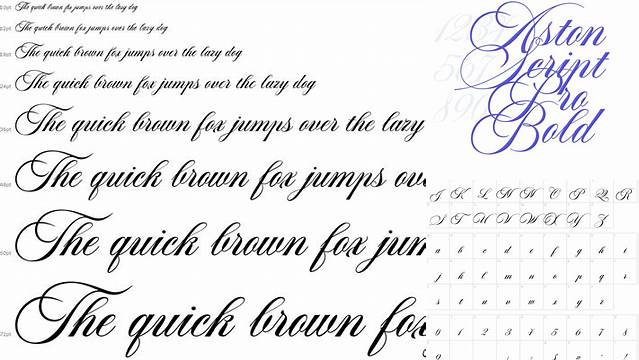
Aston Script Font: Free Download & Design Guide
Hey guys! Ever stumbled upon a font that just screams elegance and sophistication? Well, let me introduce you to the Aston Script Font! It's the kind of font that makes you want to write fancy invitations, design stunning logos, or even just jazz up your social media posts. And the best part? You can get an Aston Script Font free download, making it super accessible for everyone! This comprehensive guide will walk you through everything you need to know about this amazing font, from where to download it safely to how to use it effectively in your designs. We'll dive deep into its characteristics, explore its versatility, and even provide some killer tips to help you create visually appealing masterpieces. So, buckle up, design enthusiasts, because we're about to embark on a journey into the beautiful world of the Aston Script Font!
1. What Makes Aston Script Font So Special?
Alright, let's get down to the nitty-gritty. What's the big deal about the Aston Script Font? Well, first off, it's a script font, meaning it mimics the look of handwriting. But it's not just any handwriting; it's a beautifully crafted, flowing script that exudes charm and grace. Think of it as the Audrey Hepburn of fonts – timeless, elegant, and always in style. The Aston Script Font boasts a unique blend of classic and contemporary elements. It has a slightly vintage feel, which can add a touch of nostalgia to your designs, but it's also clean and modern enough to fit seamlessly into current trends. The curves are smooth and inviting, the strokes are carefully considered, and the overall aesthetic is simply stunning. This font family often comes with a variety of weights and styles, allowing for incredible flexibility. Whether you're aiming for a delicate, feminine look or a bold, eye-catching statement, the Aston Script Font has you covered. Another thing that sets this font apart is its readability. Unlike some overly elaborate script fonts that can be difficult to decipher, the Aston Script Font is designed to be both beautiful and functional. The letterforms are clear and distinct, ensuring that your message is easily understood. So, if you're looking for a font that's both visually appealing and highly readable, the Aston Script Font is definitely worth considering. It's the perfect choice for adding a touch of sophistication to your projects without sacrificing clarity.
3. The Design Aesthetics of the Aston Script Font
Let's get into the nitty-gritty of the Aston Script Font. This font's aesthetic is a beautiful blend of sophistication and readability. The design is characterized by flowing strokes and elegant curves. One of the most notable features is the way the letters connect. The connections between letters create a seamless and harmonious flow, making the text appear as if it was handwritten. The contrast between thick and thin strokes adds depth and visual interest. The thicker strokes typically appear in the downstrokes, while the thinner strokes are used in the upstrokes, which create a dynamic and visually appealing effect. The letterforms have a slight slant, which adds a sense of dynamism and movement. This slant makes the font feel less formal and more approachable. The font also features a range of stylistic variations, such as swashes and ligatures. Swashes are decorative flourishes that can be added to the beginning or end of words, which add a touch of elegance and flair. Ligatures are special characters where two or more letters are combined into a single glyph, to enhance the overall visual appeal. The Aston Script Font strikes a perfect balance between readability and visual appeal. The letterforms are clear and distinct, which ensures that the text is easy to read, even at smaller sizes. Overall, the design aesthetics of the Aston Script Font are a testament to the art of typography. It’s a font that is able to bring a touch of elegance and personality to any design. It's suitable for various uses, from wedding invitations to branding materials. The design aesthetics of the Aston Script Font make it a versatile and attractive choice for any designer seeking to create something beautiful.
3.1. Characteristics of Aston Script Font's Letterforms
Let's dive into the specifics of the Aston Script Font's letterforms. The character set of Aston Script Font is meticulously designed, with each letter crafted to reflect the elegance of handwriting. It features a calligraphic quality that sets it apart. The curves are smooth and graceful, and the angles are carefully considered to create a visually pleasing effect. The letterforms are not overly stylized. They are designed with readability in mind. This is crucial for ensuring that the text is easily understood, whether it is used in headlines, body text, or any other design element. The letterforms of the Aston Script Font display varying stroke weights, which is an essential element of the font's aesthetic appeal. The contrast between thick and thin strokes gives the font a dynamic and lively feel. This effect is achieved by varying the pressure applied when writing with a brush or pen. The serifs are subtle and elegant, adding to the font's overall sophistication. Serifs are the small strokes or flourishes at the ends of letterforms. In the Aston Script Font, the serifs are present but are not overpowering, which helps maintain the font's elegance. The overall form of each character is a reflection of a sense of balance and proportion. The designers have paid attention to the spacing between letters and the overall balance of each word. This ensures that the text looks harmonious and visually attractive. The character set typically includes a variety of ligatures and alternate characters. Ligatures are special characters in which two or more letters are combined into a single glyph. These can improve the flow of the text. Alternate characters provide more options for designers. This allows them to add extra variety and personality to their work. The letterforms of the Aston Script Font are a reflection of the designers' attention to detail. The font's qualities make it a perfect choice for projects where elegance and readability are key.
3.2. Comparing Aston Script Font to Similar Fonts
Okay, let’s see how the Aston Script Font measures up against some other popular script fonts. Understanding its place in the world of typography helps you choose the perfect font for your project. Compared to fonts like Brush Script, the Aston Script Font tends to have a more refined and elegant feel. Brush Script is a bit more informal and playful, with bolder strokes and a more casual appearance. The Aston Script Font, on the other hand, is more suitable for projects that require a touch of sophistication. Then there's Great Vibes, another beautiful script font. Great Vibes has a similar elegant feel to the Aston Script Font, but it might have a slightly more vintage vibe. The Aston Script Font, in comparison, often has a more modern and clean appearance, making it suitable for a wide range of contemporary design projects. Compared to Dancing Script, the Aston Script Font can offer more versatility. Dancing Script has a very specific, energetic style, while the Aston Script Font can be a better choice if you need something a bit more subtle or adaptable. Another comparison could be Lobster, a bold and playful script font. While Lobster is great for headlines and attention-grabbing text, the Aston Script Font excels in providing an elegant and readable script for various design needs. Its design is better for body text. Every font has its own unique strengths. When choosing between fonts, the best choice depends on your specific project's requirements. Take into account the overall tone, the desired readability, and the aesthetic you're trying to achieve. Consider the size and purpose of the text. The Aston Script Font’s balance between elegance and legibility can make it a great option. Compare the font's features like ligatures, alternate characters, and weights. They can help you add personality to the font. These factors can help you choose the font that works best for your design.
4. Using Aston Script Font in Your Designs
Alright, you've got your Aston Script Font free download and you're ready to get creative. But how do you actually use it in your designs? Let's explore some of the best ways to showcase this beautiful font. The Aston Script Font is ideal for creating elegant invitations. Use it for wedding invitations, party invitations, or any event where you want to make a sophisticated statement. The flowing script adds a touch of class that will impress your guests. Another great application is in logo design. The Aston Script Font can be used to create a unique and memorable logo for your brand. The font's elegant style can convey a sense of luxury, sophistication, or creativity, depending on the context. It's also perfect for branding materials. Incorporate the Aston Script Font into your business cards, letterheads, and other branding elements to create a cohesive and professional look. Use it sparingly for body text, as script fonts can sometimes be difficult to read in large blocks. However, it works great for headings, subheadings, and short phrases. Social media graphics are another great area to use this font. Create beautiful quotes, announcements, or promotional materials for your social media channels to capture your audience's attention. Be mindful of the context and the overall design when using the Aston Script Font. Pair it with a complementary font for body text to ensure readability and balance. Experiment with different colors, backgrounds, and layouts to see what works best for your project. The key is to use the font strategically and thoughtfully. It is a versatile font that will help you enhance your designs.